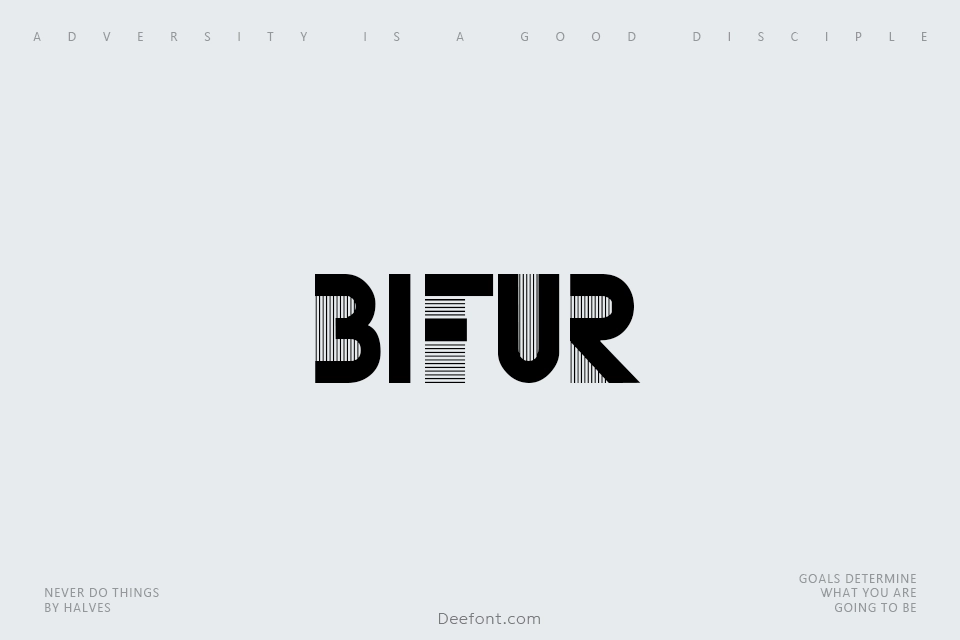
Bifur Font
Bifur is a striking geometric display typeface inspired by the Art Deco movement, originally designed in 1928. This distinctive font features bold, angular letterforms with intricate line patterns that create depth and visual impact. Perfect for headlines, posters, and branding projects, Bifur combines minimalist geometric shapes with decorative elements characteristic of the Jazz Age aesthetic. Its unique construction uses solid forms combined with thin linear details, making it an ideal choice for designers seeking a bold, artistic statement that commands attention while maintaining elegant sophistication.
Designed by:Tomoyuki “Tee-Wat” Watanabe